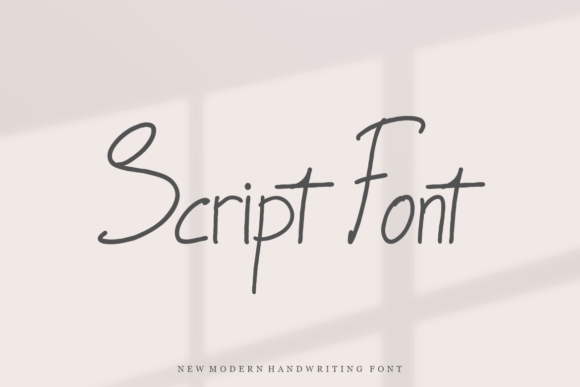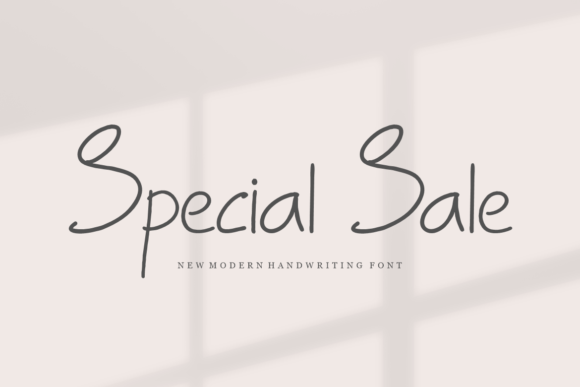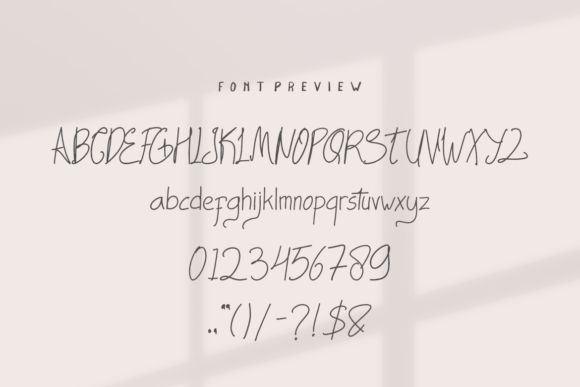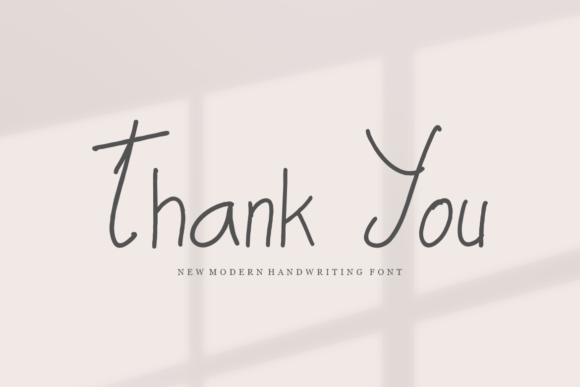
Handwritten with a Touch of Modernity: Anak Senjakala Font
You know that moment when you’re brainstorming ideas for a new project and suddenly, a spark of creativity strikes? Maybe it’s the combination of colors, shapes, and typography that just clicks. For designers, this eureka moment can be the key to creating something truly special. And what better way to add a personal touch to your design than with a custom font?
Meet the Anak Senjakala Font, a modern handwritten font that seamlessly blends the casual, personal feel of handwriting with contemporary design elements. This font is perfect for adding a handcrafted touch to product labels, tags, and packaging, elevating the product’s appeal and making it stand out from the crowd.
For designers, the Anak Senjakala Font is a valuable asset, offering a unique and versatile tool to add a personal touch to their designs. Whether you’re working on a branding project or a product packaging design, this font is sure to bring a fresh and creative twist to your work.
Anak Senjakala Font Key Features
- Font Family: Anak Senjakala is a custom-designed font family, making it a unique choice for various projects.
- Size: The font family includes a range of weights, from Extra Light to Extra Bold, catering to different design requirements.
- Resolution: Designed for high-resolution displays, making it ideal for digital projects such as websites, mobile apps, and digital signage.
- Unique Characteristics: Anak Senjakala’s distinctive features include a mix of modern and traditional elements, resulting in a unique aesthetic that sets it apart from other fonts.
Anak Senjakala Font Review
Overall, I think the Anak Senjakala font has some great qualities, but it also has some areas where it falls short.
- Unique character: Anak Senjakala has a distinctive and charming character that sets it apart from other fonts.
- Historical significance: As a typeface inspired by ancient scripts, it has a rich cultural heritage that adds depth and interest.
- Limited legibility: In certain situations, the font’s intricate details can make it difficult to read, especially at smaller font sizes.
- Limited font weights: Anak Senjakala is primarily available in a single weight, which can limit its versatility in different design applications.
While Anak Senjakala is a beautiful and unique font, its limitations may make it less suitable for certain design projects. However, with careful consideration and planning, it can still be a valuable addition to a designer’s toolkit.
Anak Senjakala Font is perfect for creating traditional or cultural designs, such as:
- Traditional Indonesian or Malaysian-inspired designs.
- Wedding invitations or other cultural events.
- Children’s book illustrations or educational materials.
Anak Senjakala is available in various font sizes, ranging from 12 to 72 points. The font resolution is scalable, meaning it can be resized without losing its quality. The font also supports a wide range of languages, including Latin, Cyrillic, and Greek scripts. Additionally, Anak Senjakala is optimized for use at high resolutions, making it suitable for both digital and print media.